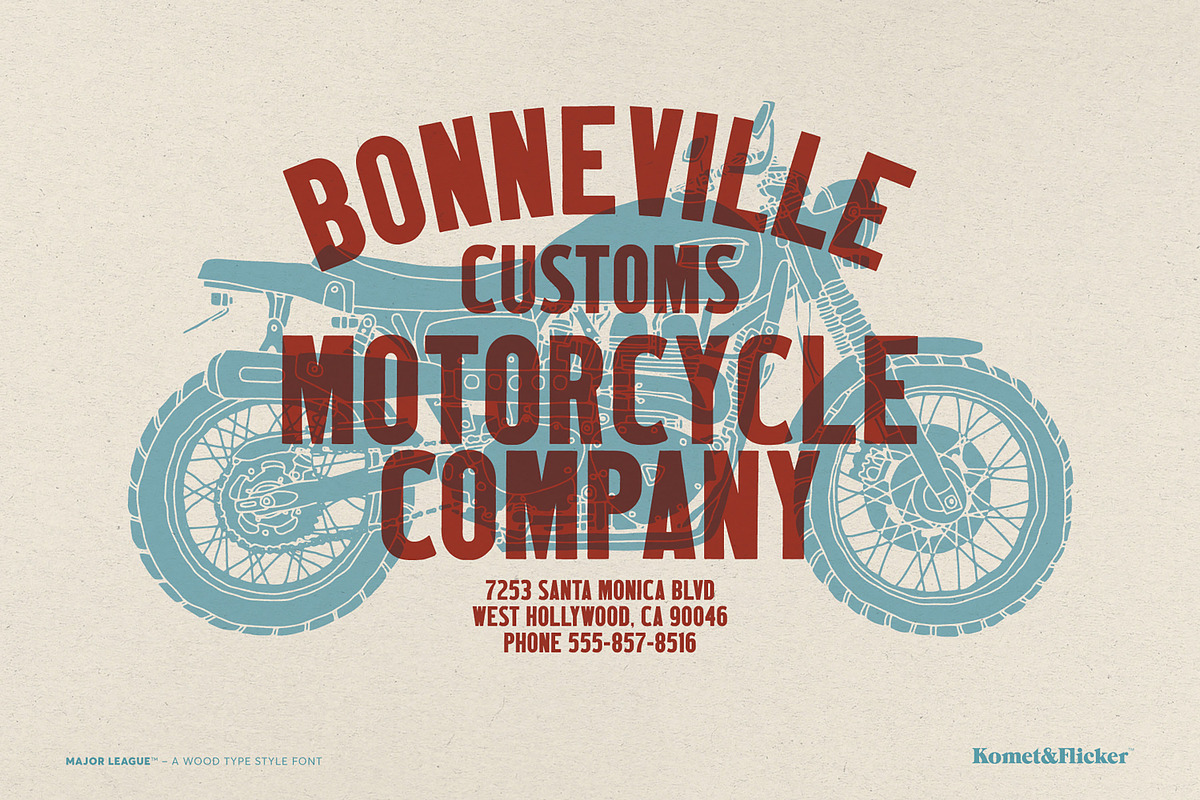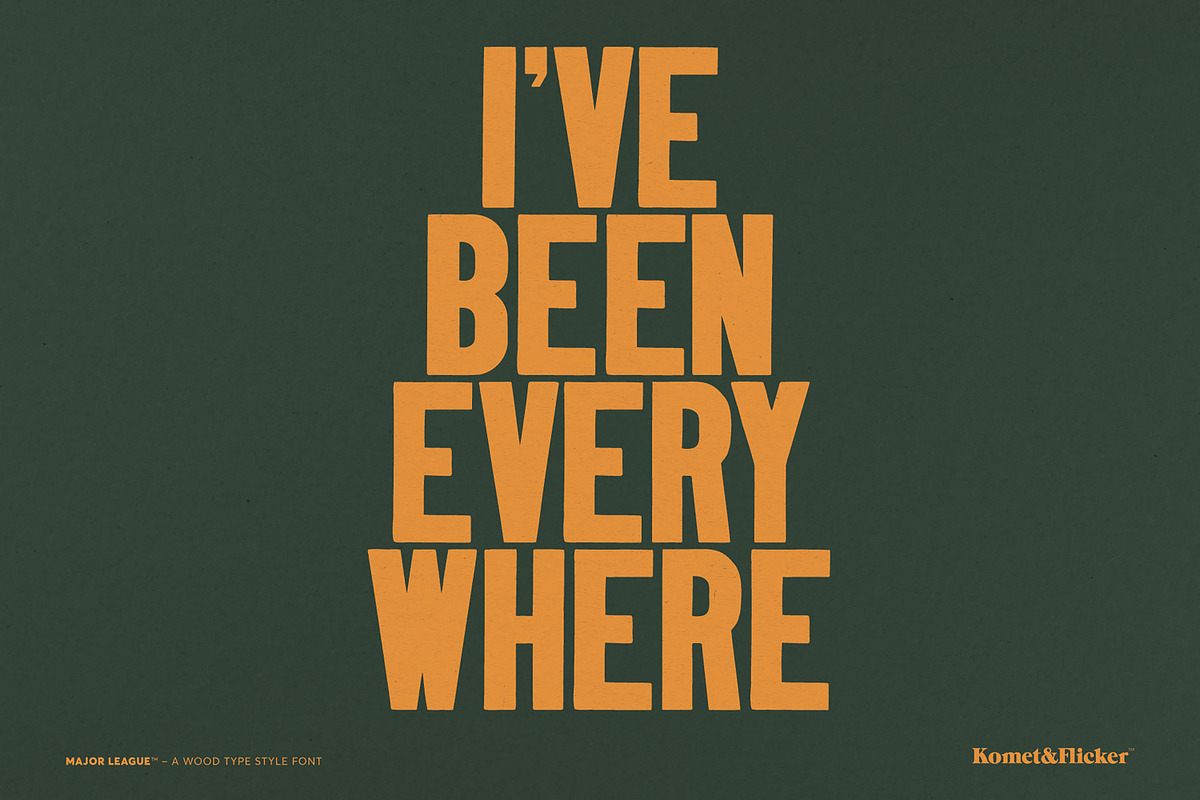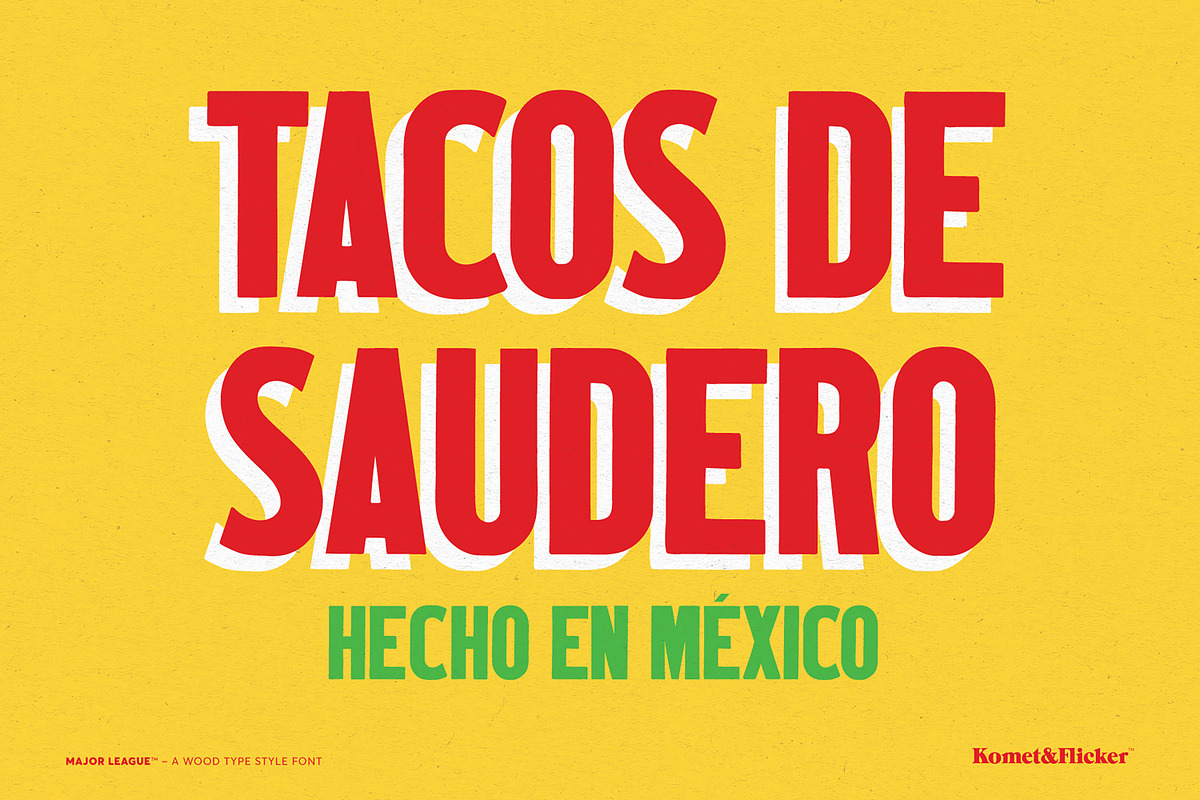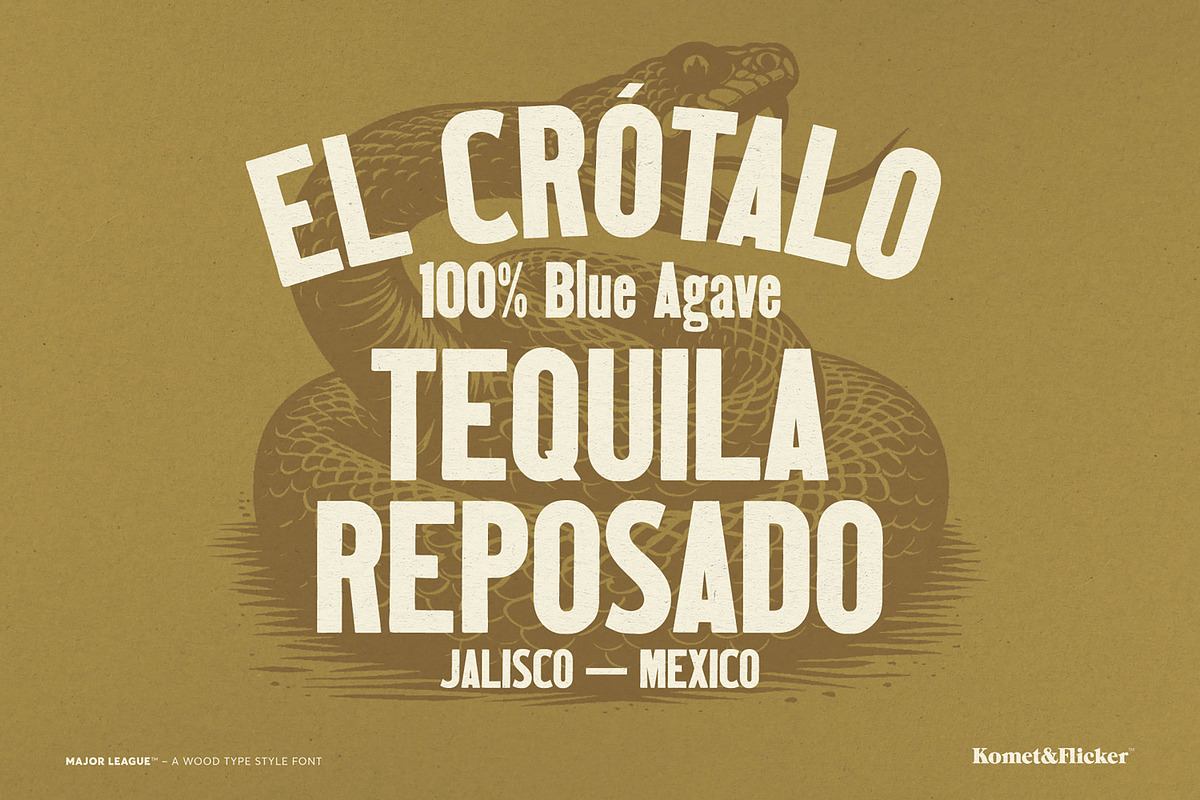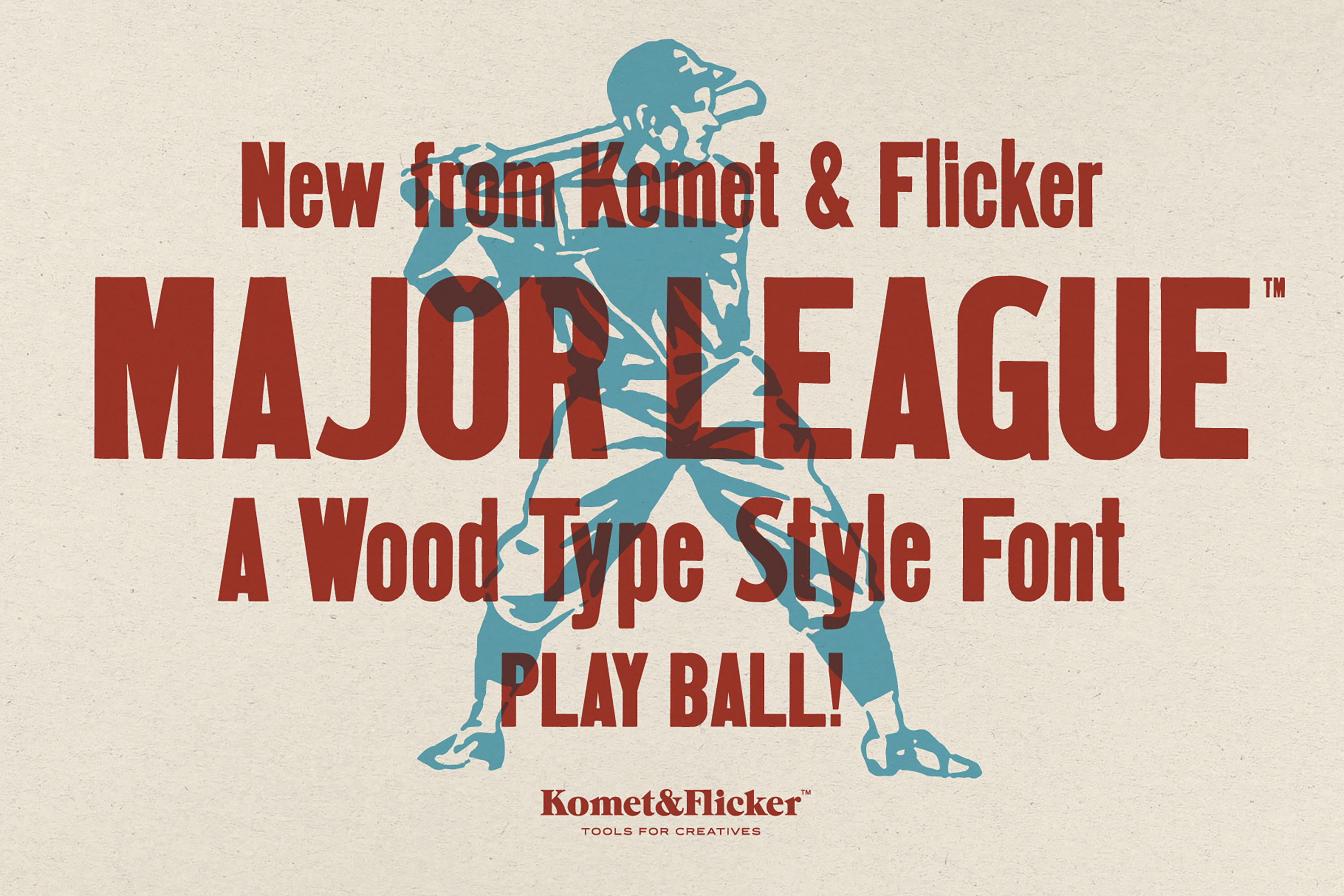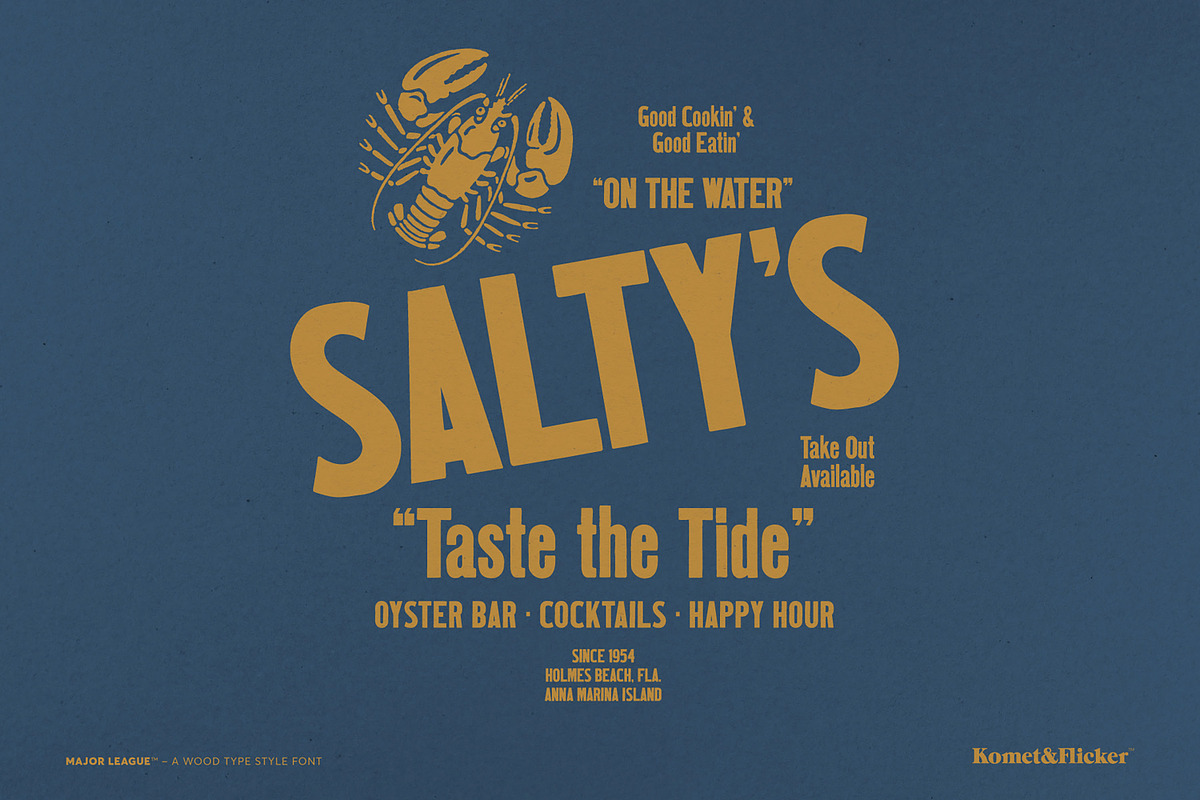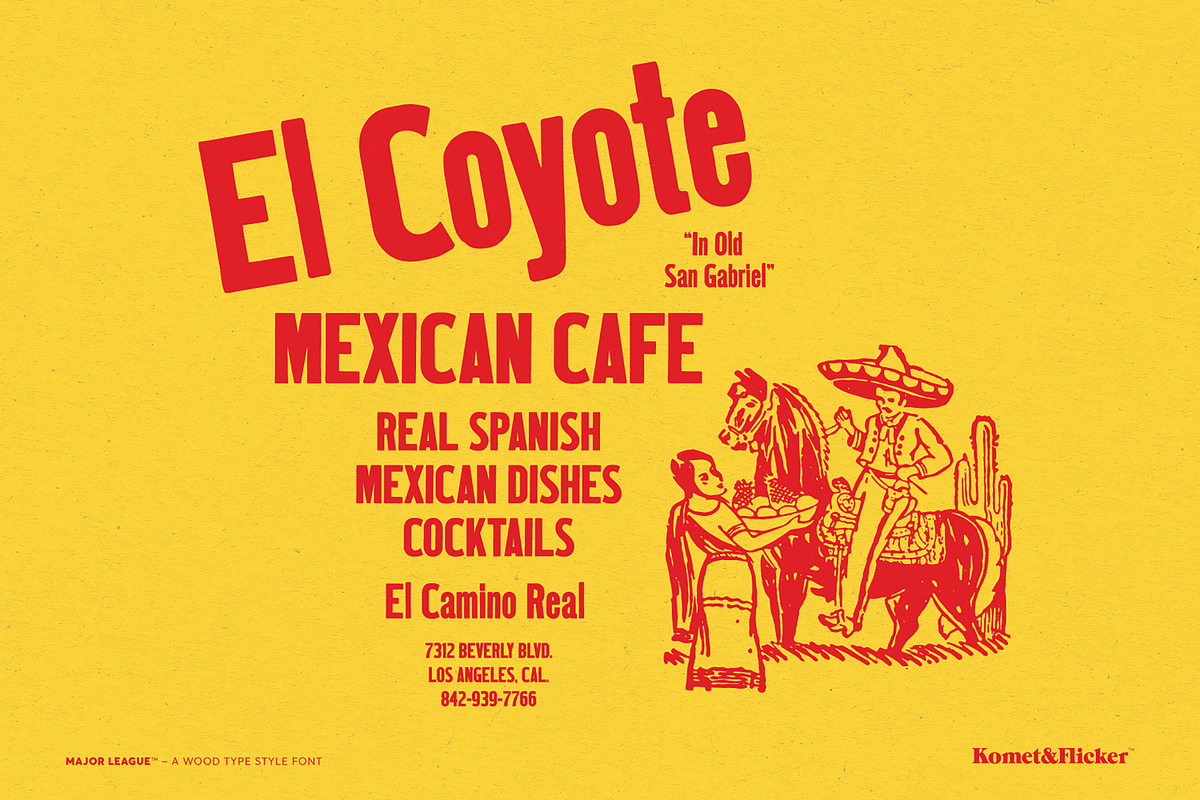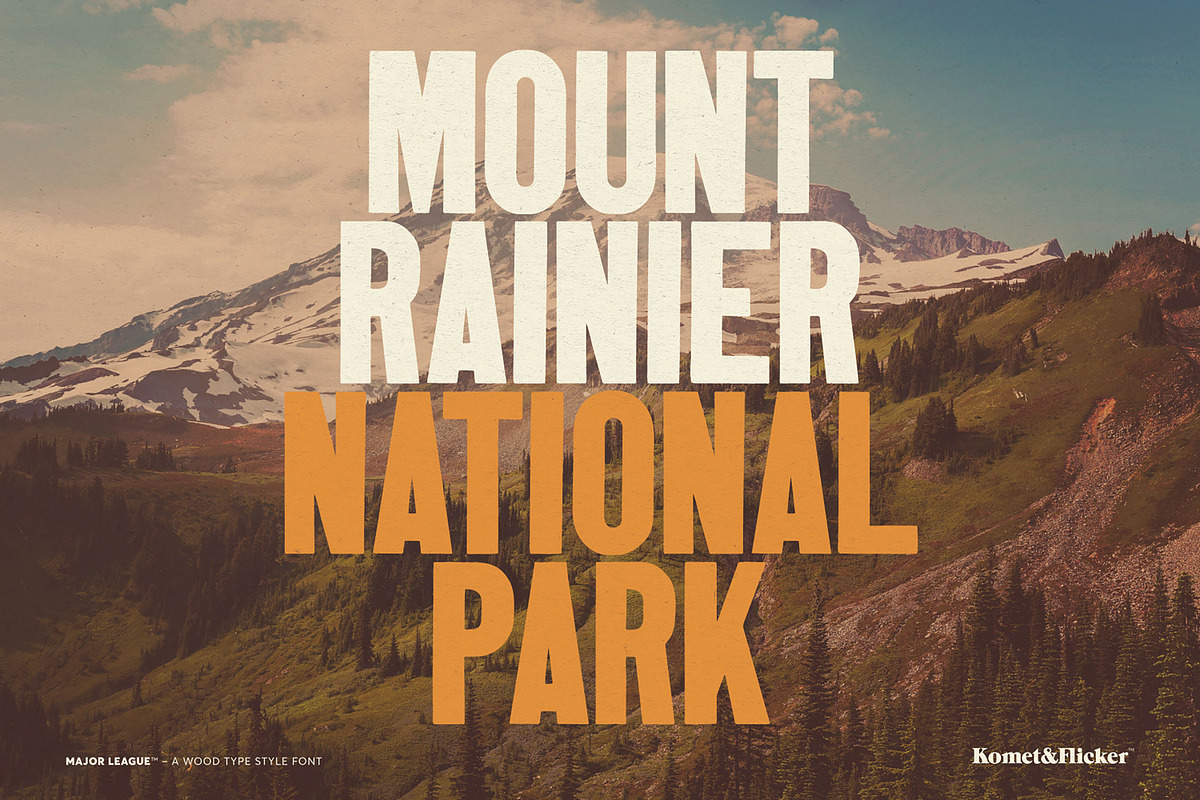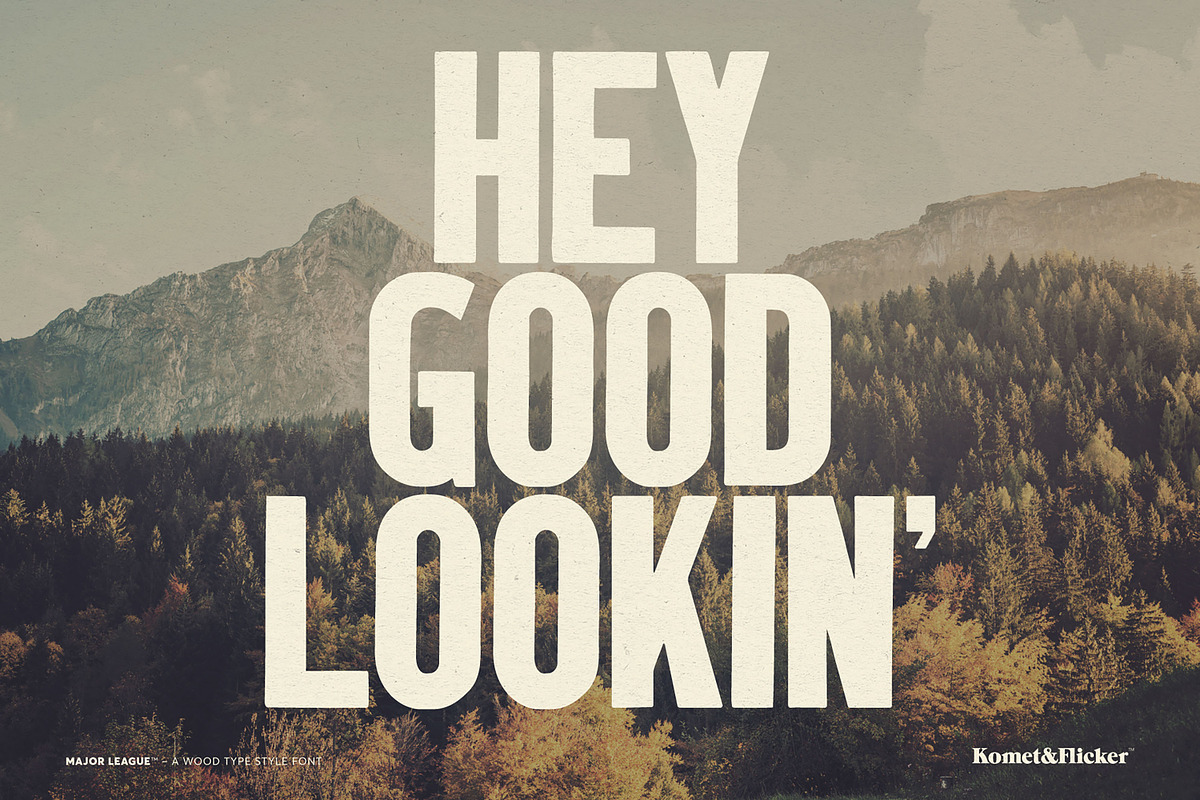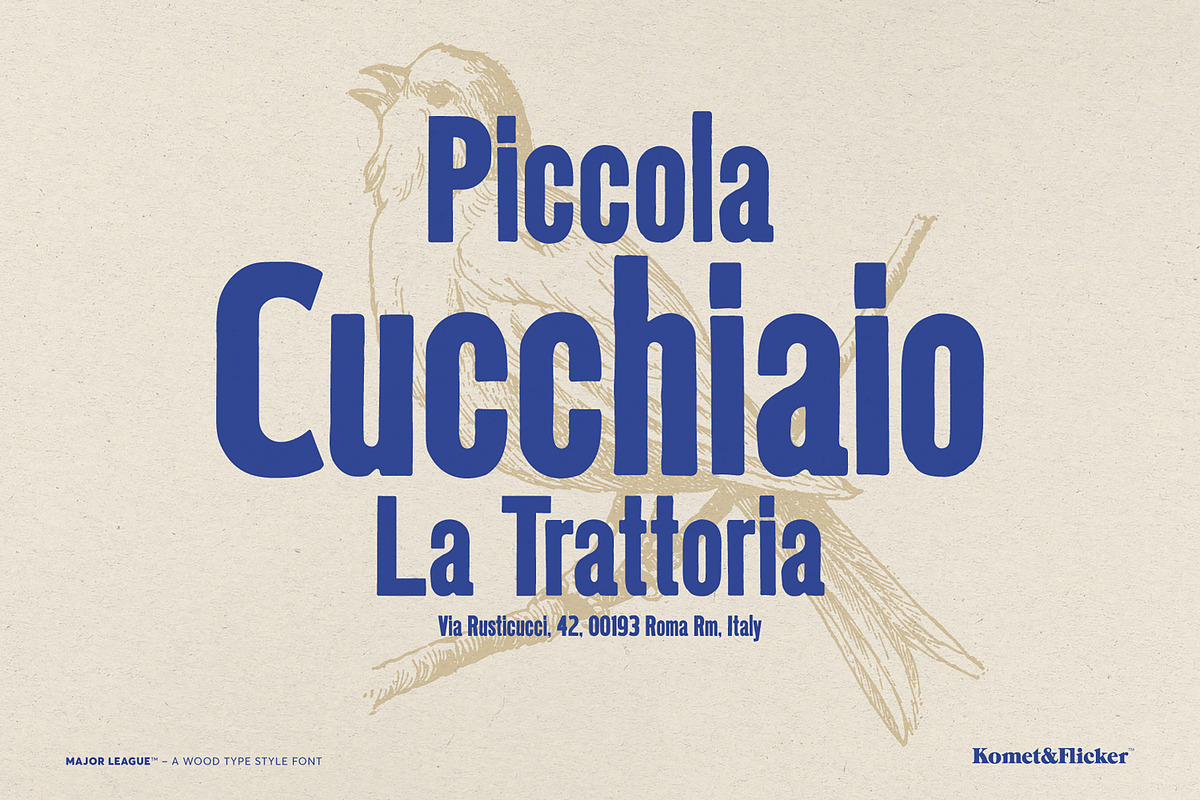
Major League - A Wood Type Font
Bring bold character and timeless charm to your design projects with Major League, a vintage-inspired font crafted with the spirit of classic wood type letterpress printing. Perfect for everything from posters and logos to packaging and signage, Major League captures the tactile beauty of hand-set type that resonates with warmth and character.
- Full A-Z uppercase and lowercase basic latin characters
- Full Western European specific characters
- Numbers, punctuation, and select symbols
- Two styles of pre-made common fractions